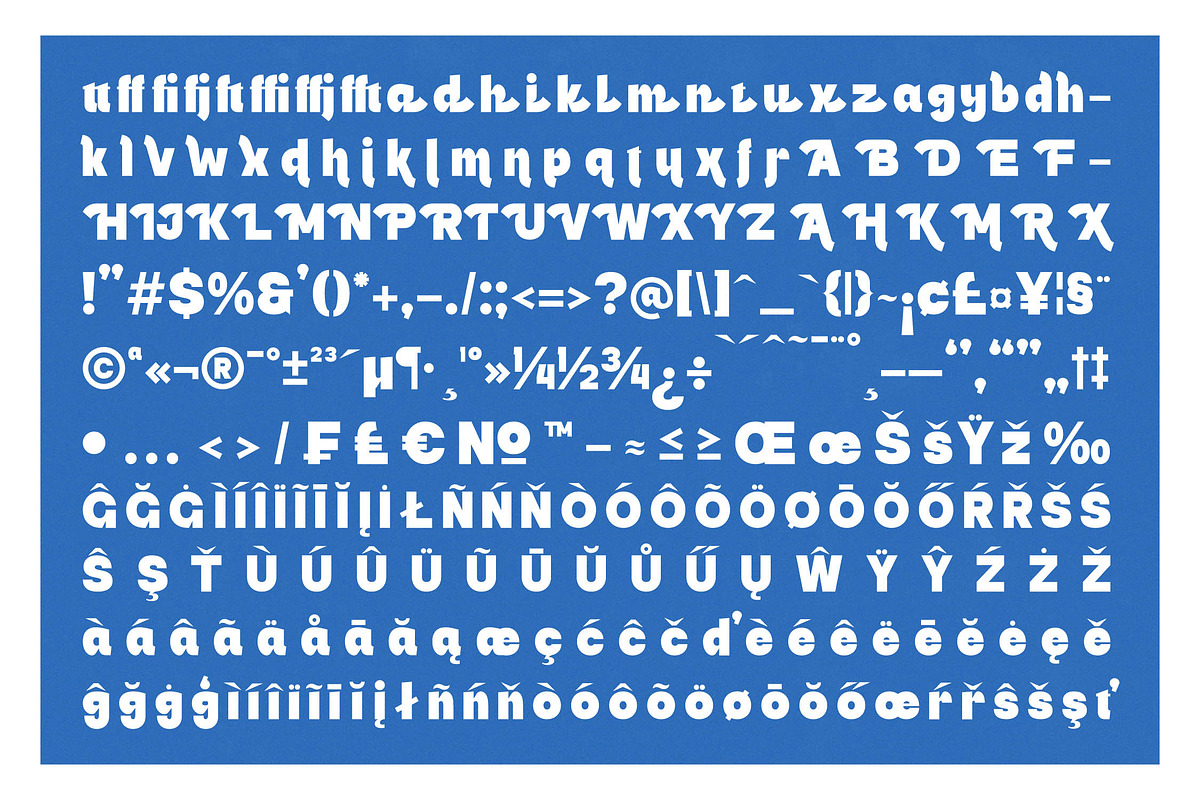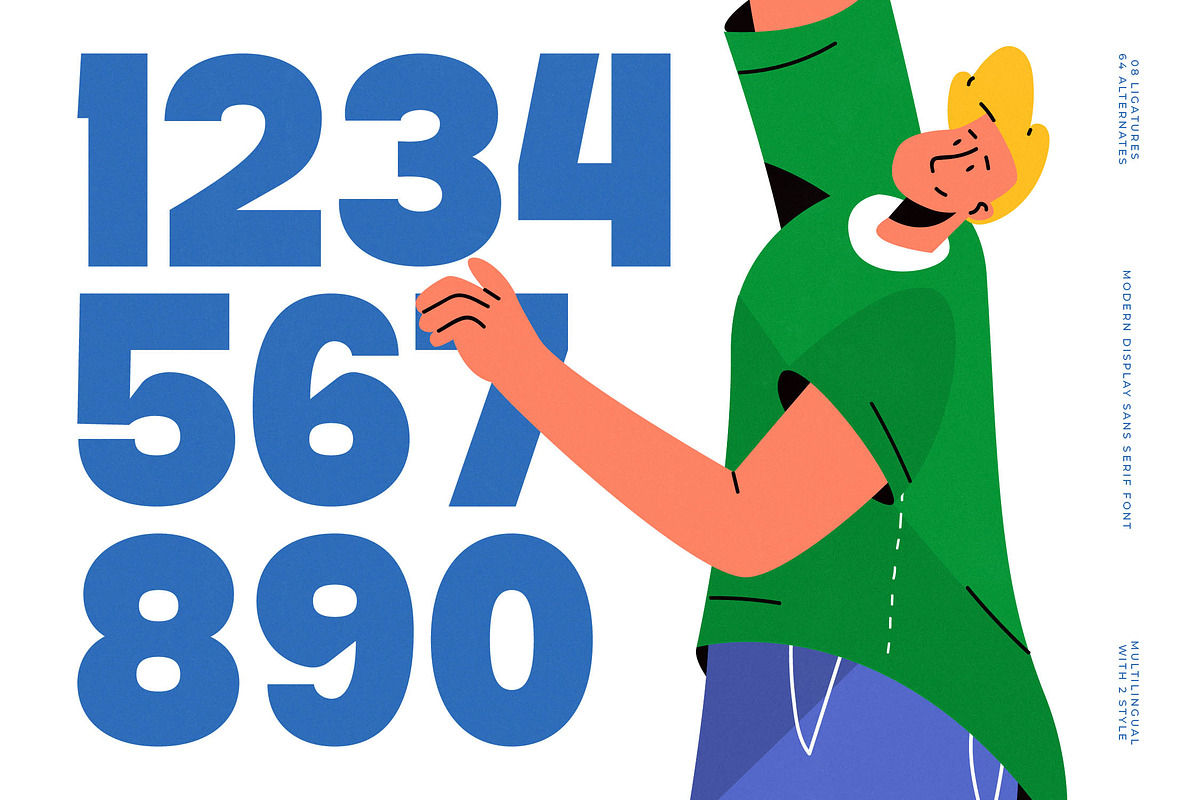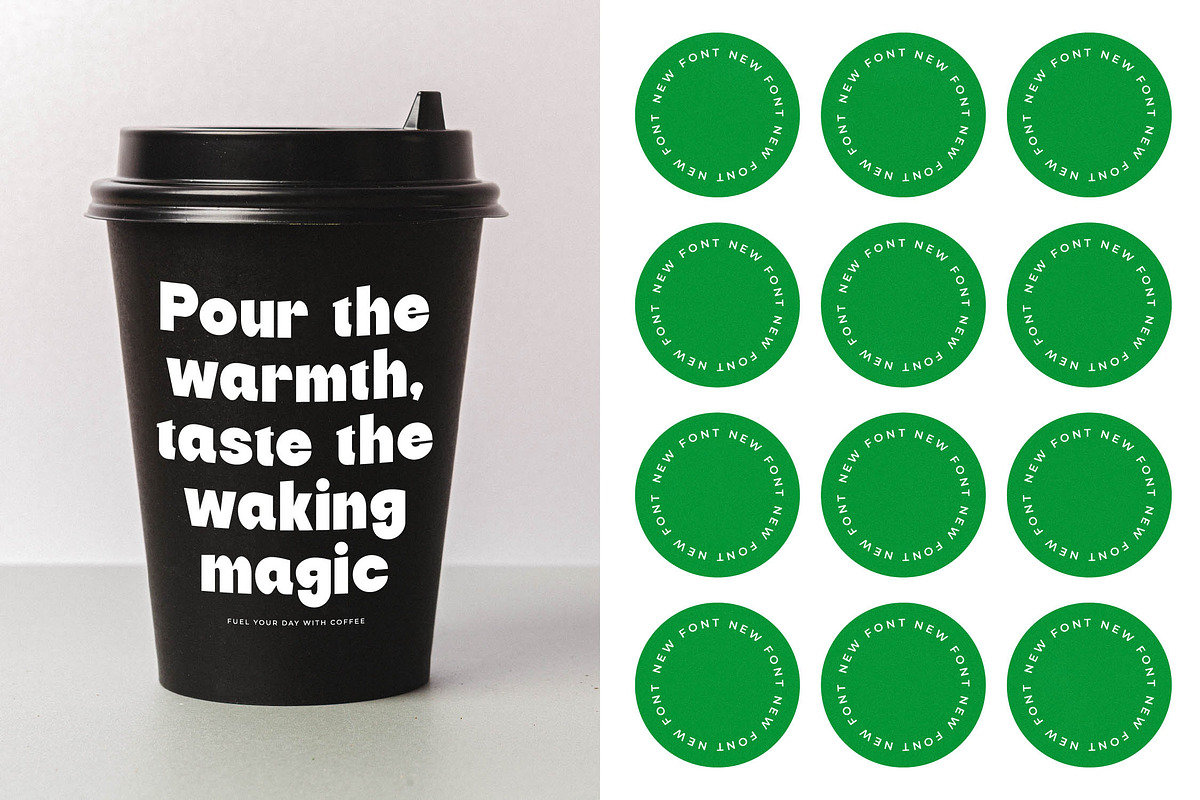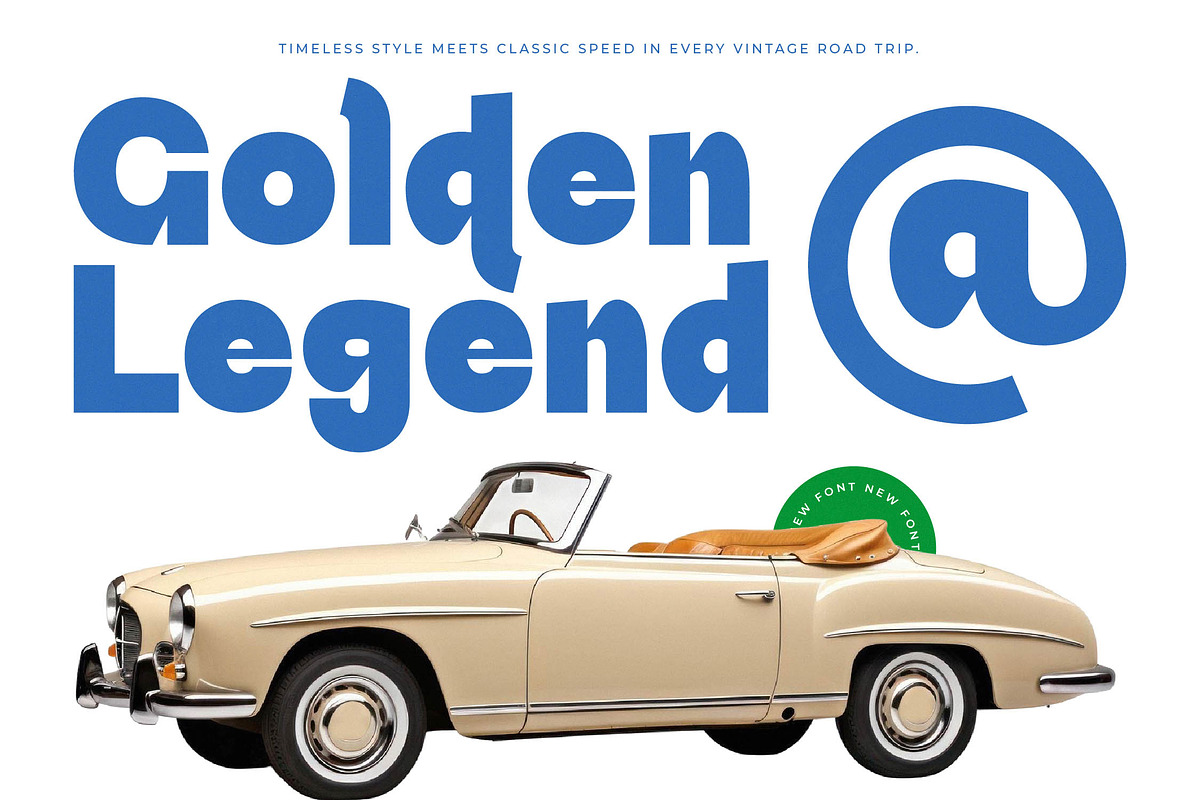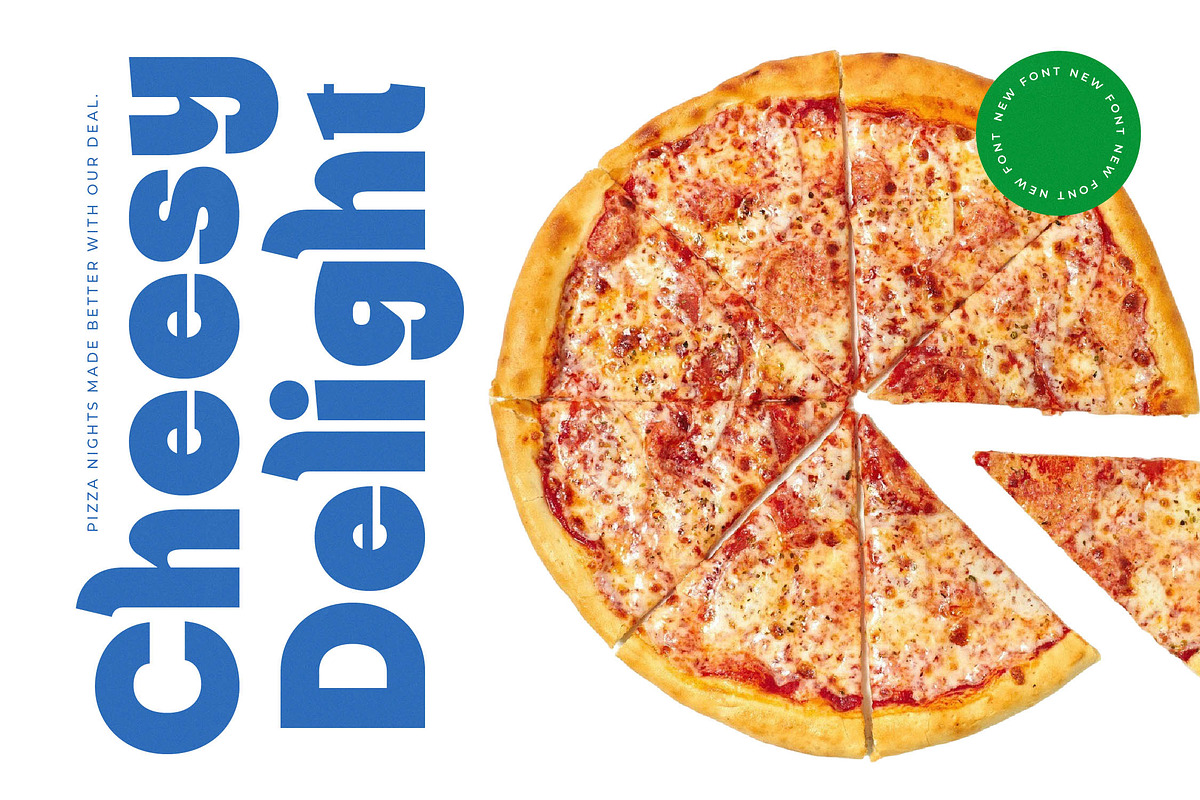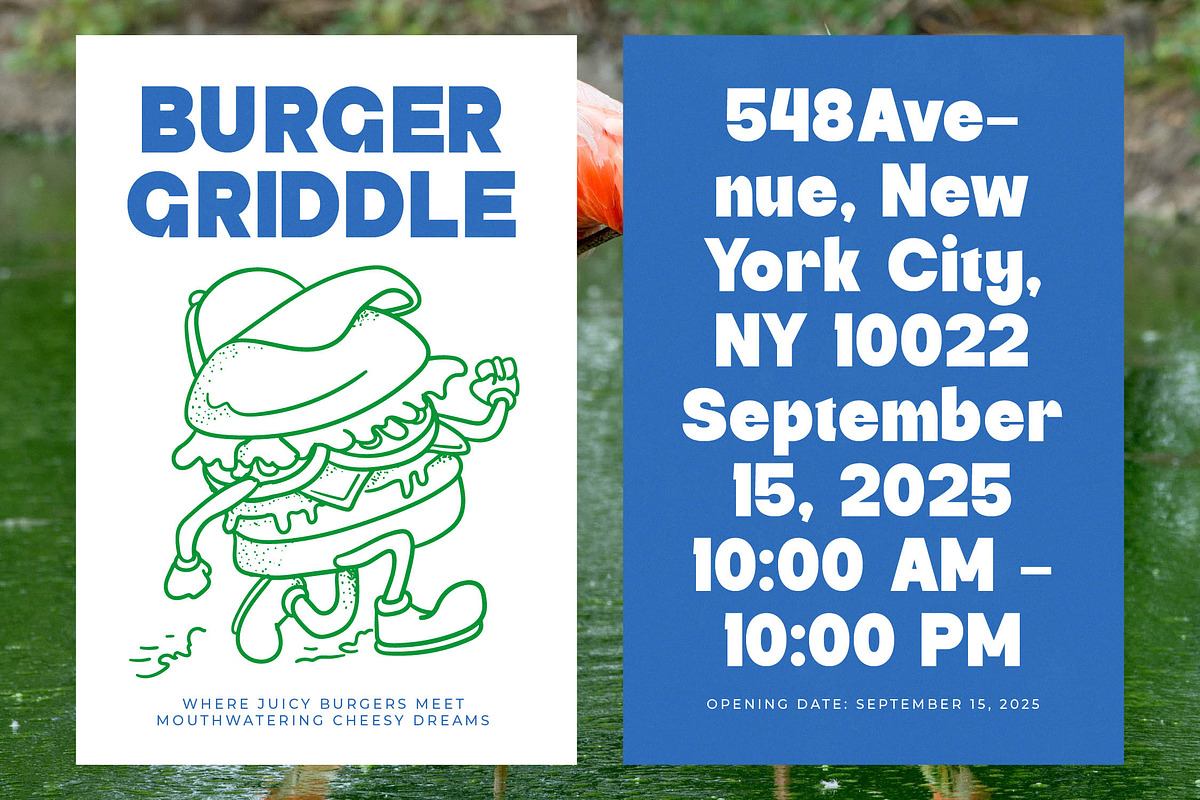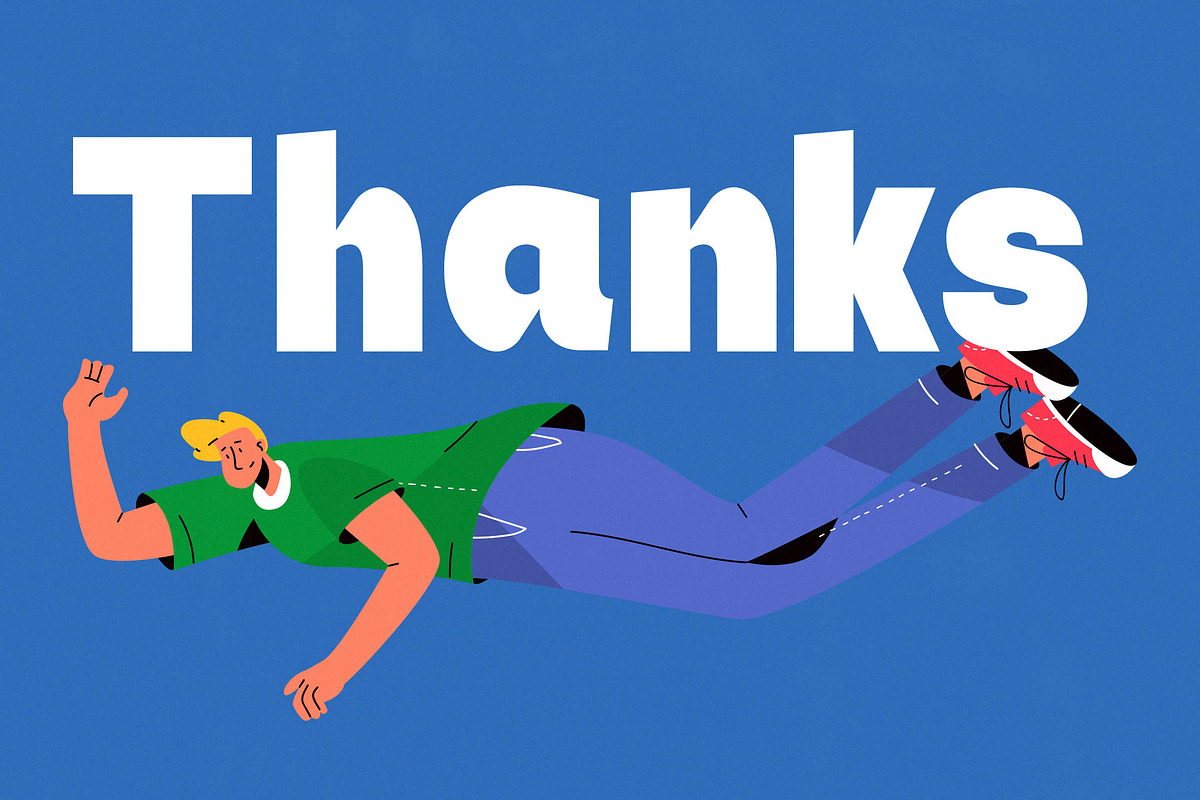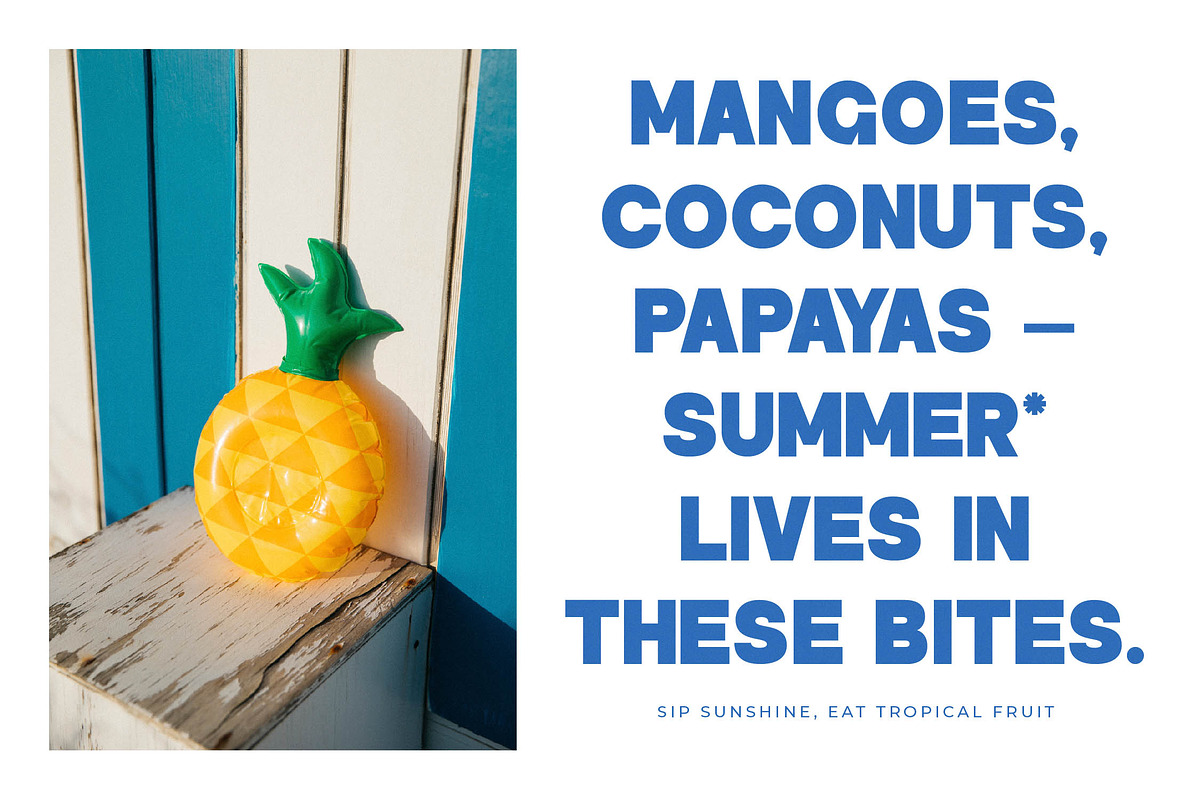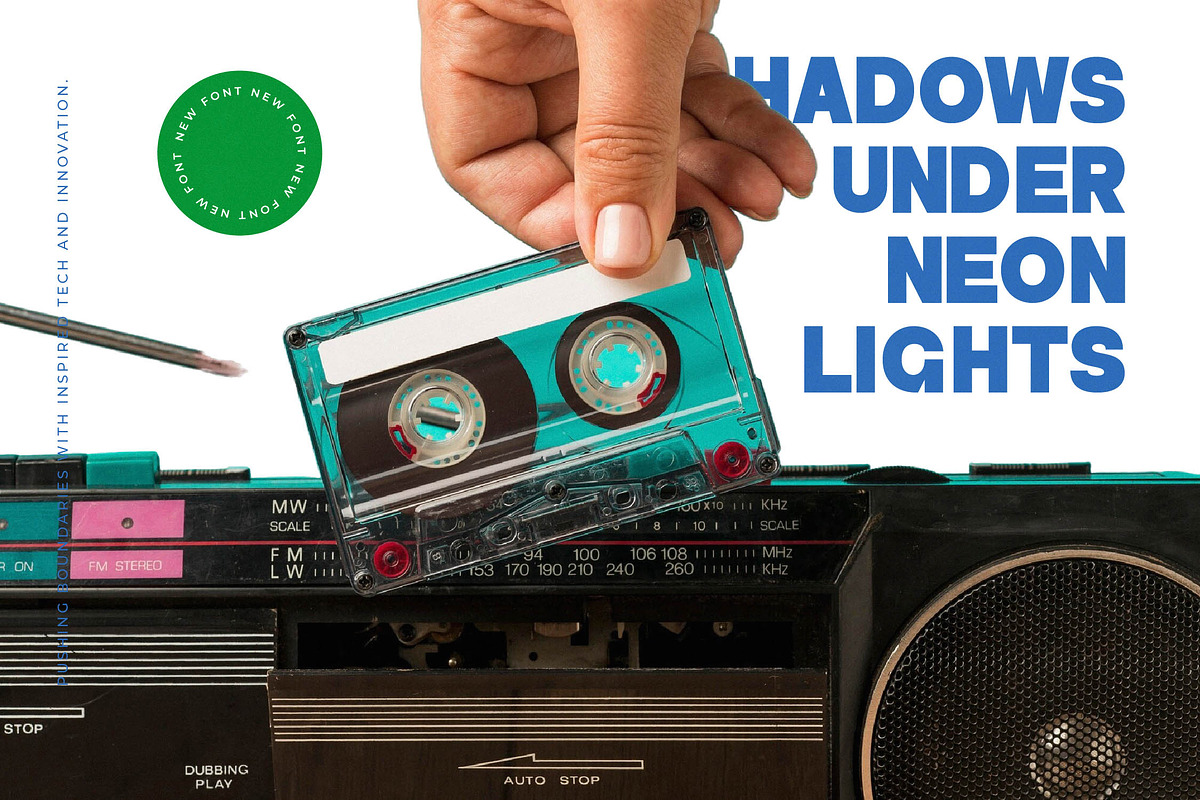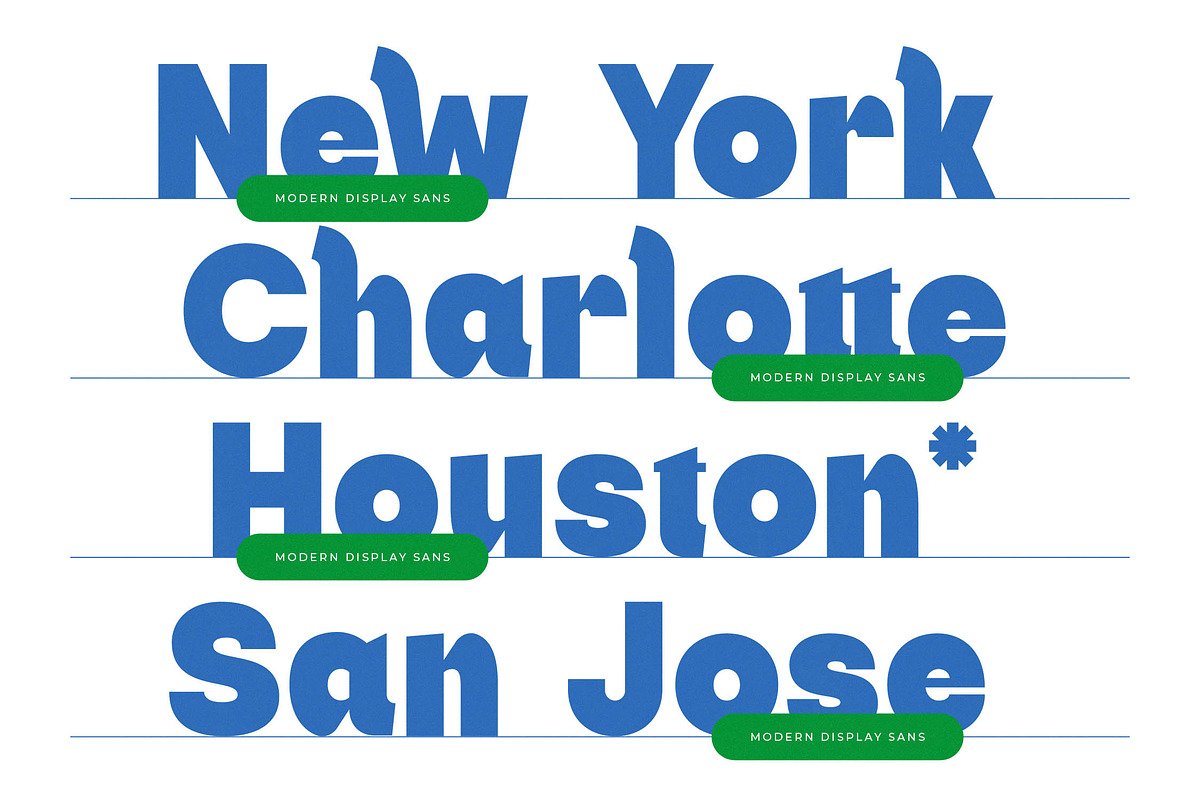
Banids Modern Display Sans Serif
Banids is a masterclass in bold, expressive typography that commands attention the moment it hits the canvas. This striking display font blends high-impact weight with a playful spirit to transform any design into a visual statement.
Inspired by the energetic pulse of modern urban life and the chunky aesthetics of mid-century display lettering, the atmosphere is one of pure confidence. Its thick strokes and unique terminals evoke a sense of movement and joy, perfect for projects that need to feel both contemporary and welcoming.
This typeface delivers a powerful modern serif display personality that balances friendliness with professional luxury typography standards. It serves as a high-performance editorial font designed specifically for maximum branding impact and clear visual hierarchy in crowded layouts.
Tapping into the current modern serif trend, this font is a perfect match for designers seeking editorial display fonts that break away from standard geometric constraints. Its character-driven typography ensures your work remains at the forefront of the latest graphic design movements.
Whether you are crafting a standout logo design or building a cohesive identity for branding, this font excels in editorial spreads and high-end packaging. It is also a fantastic choice for modern fashion magazines and vibrant advertising campaigns that require a bold, distinctive voice.
The package is technically robust, featuring a wide array of ligatures and alternates to provide endless creative possibilities. With comprehensive multilingual support and a full set of international characters, it is ready for global design challenges across various platforms.
- Ligature 08 Alternate 64